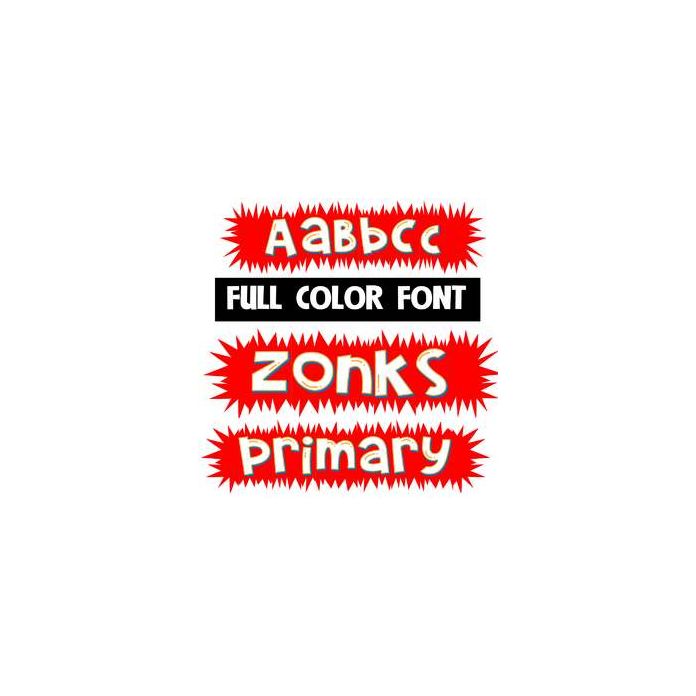
This fun, full-color comic font features starburst around each letter. To create the starbursts "ends" type greater than, less than, parenthesis, or either brackets. For example we typed: [zonks]. For a blank starburst for a "space" use the underscore. This font works best for titles, displays, posters and more. Please note color fonts will show as black in non compatible programs. This font type is compatible with Silhouette Studio.